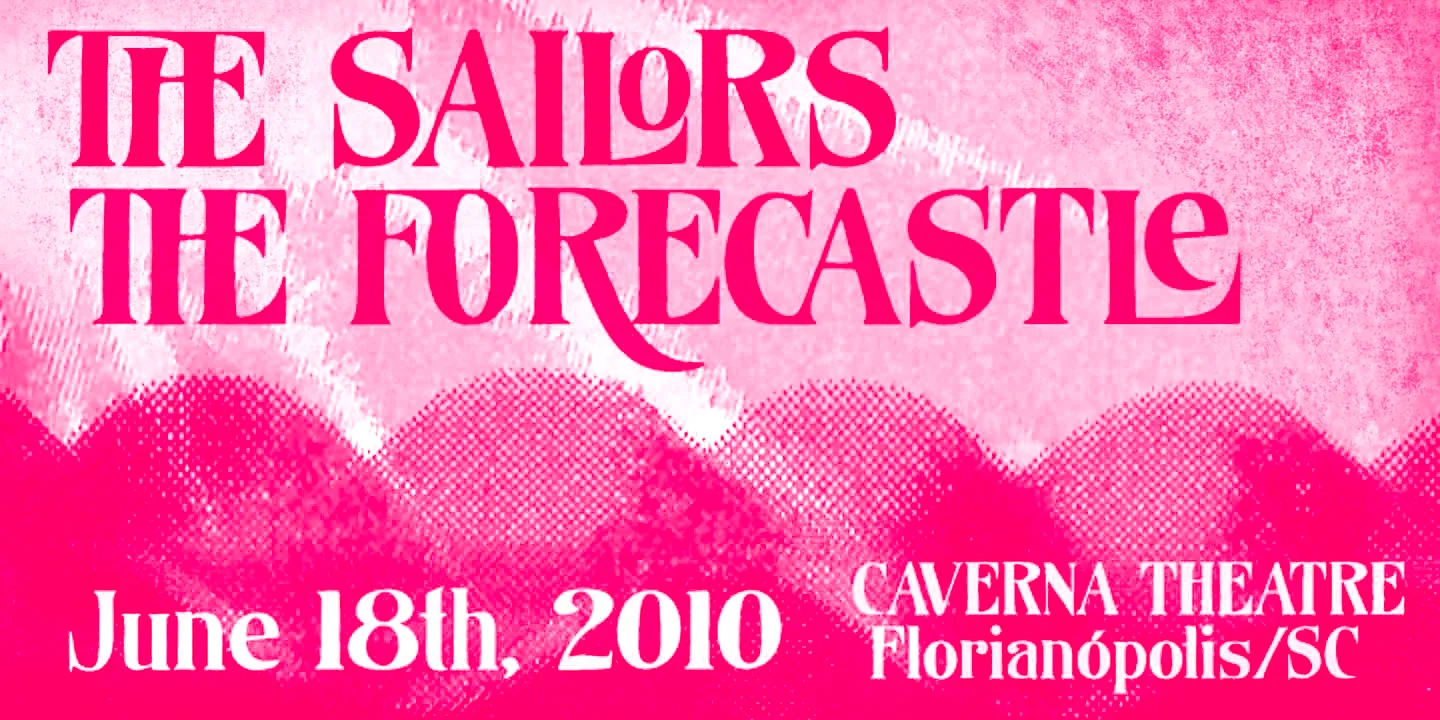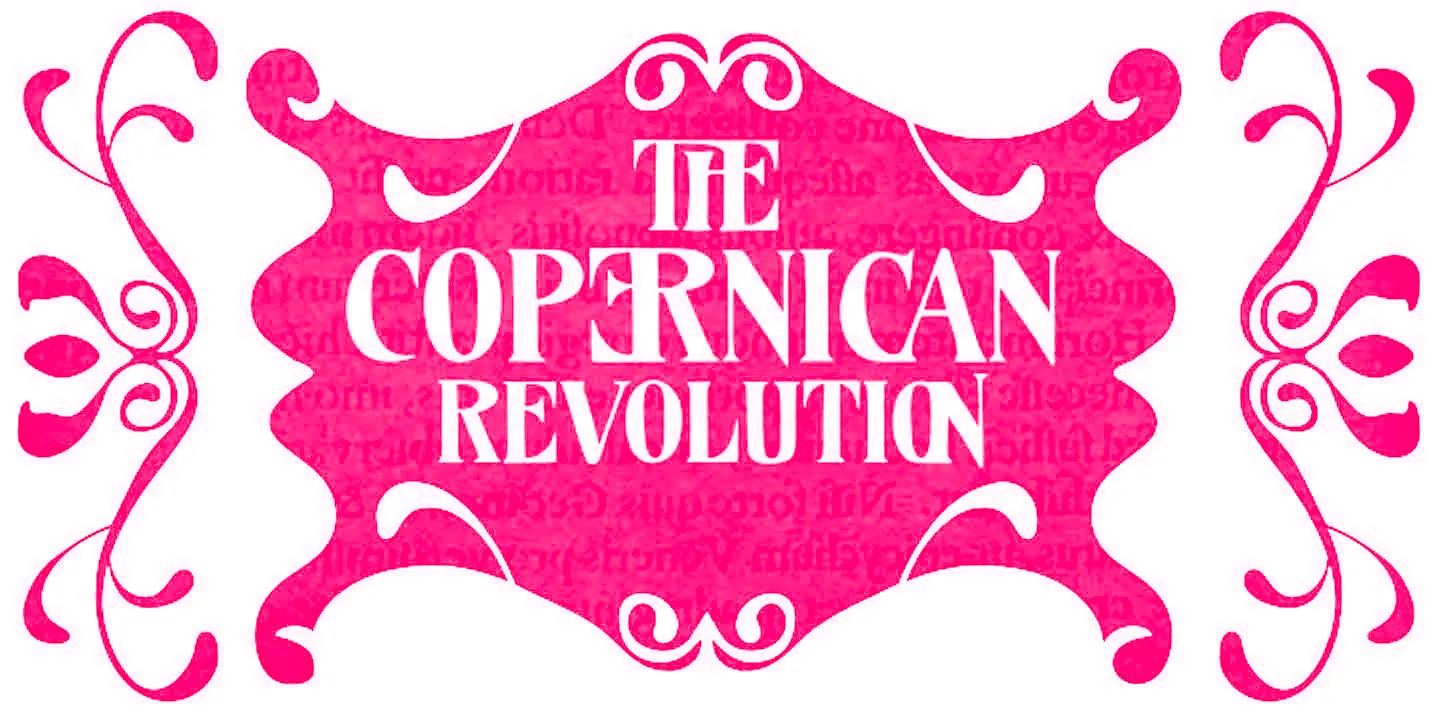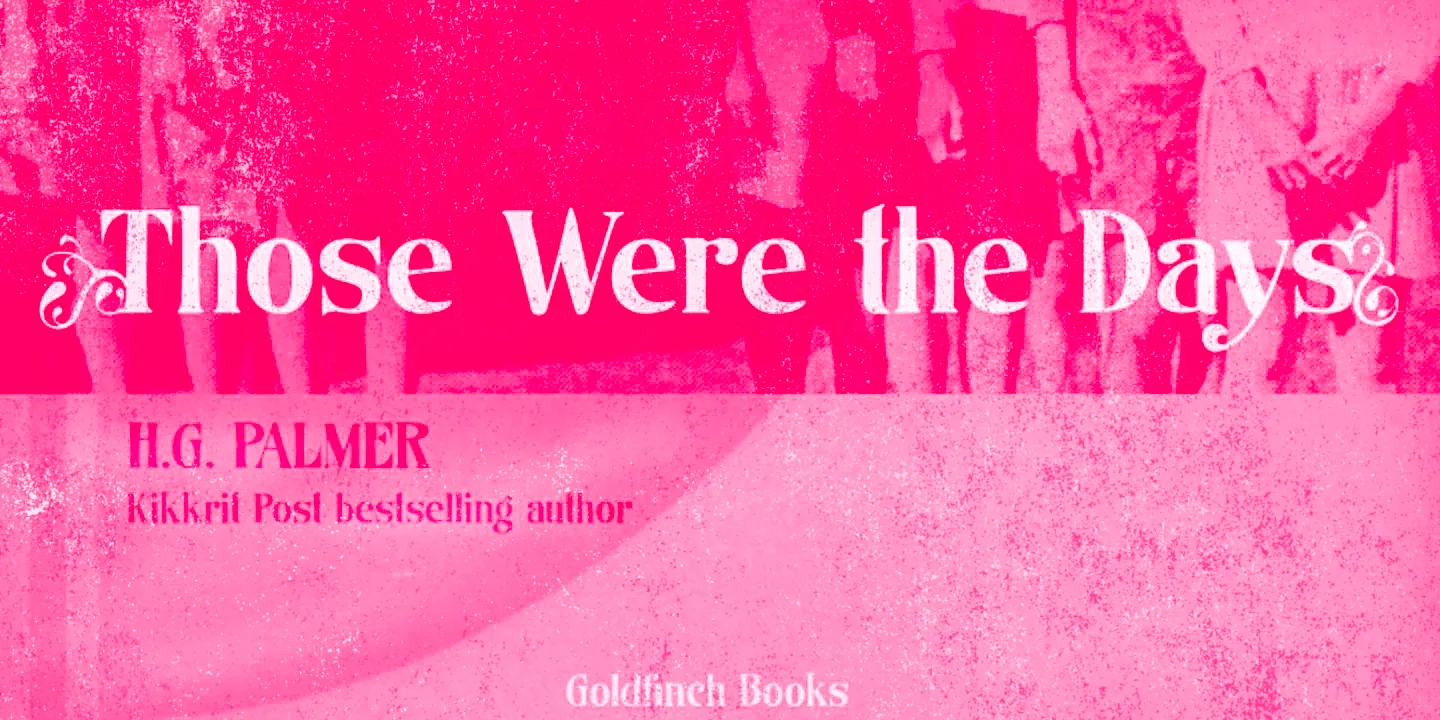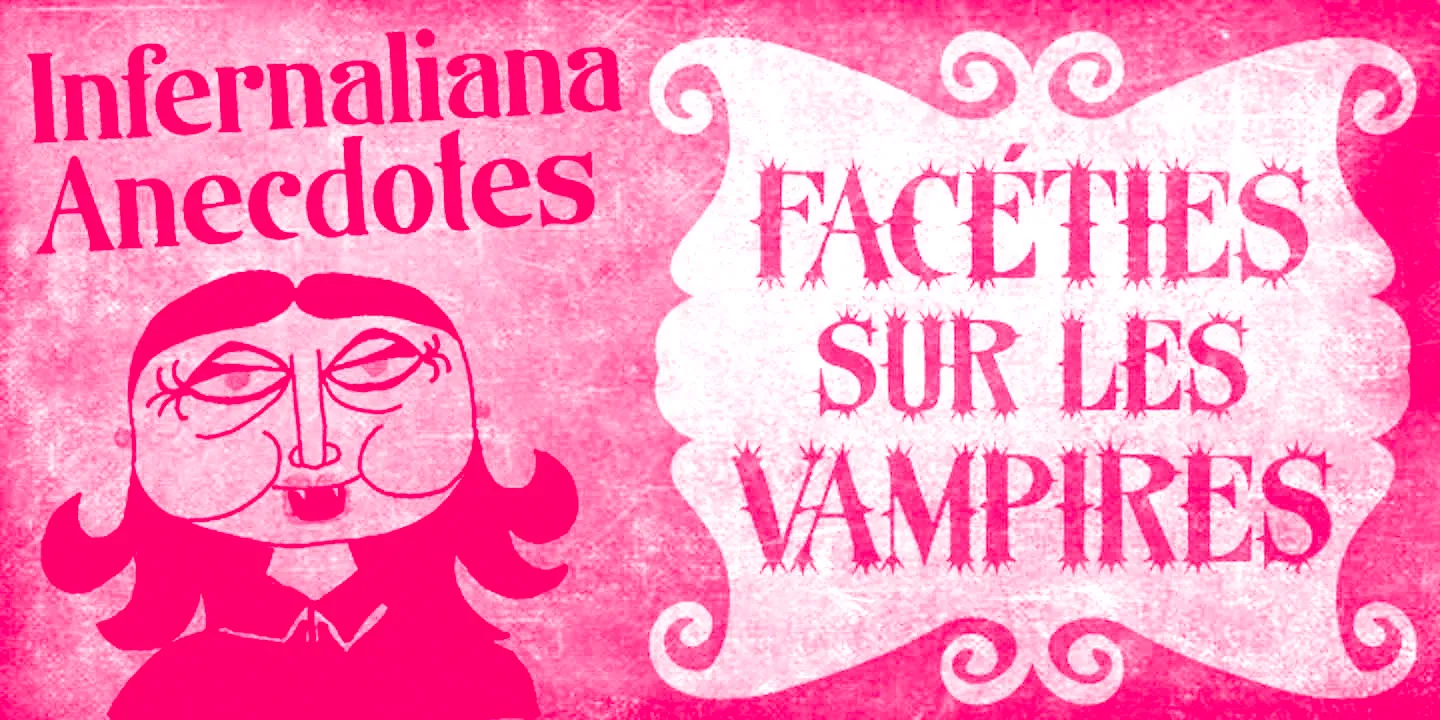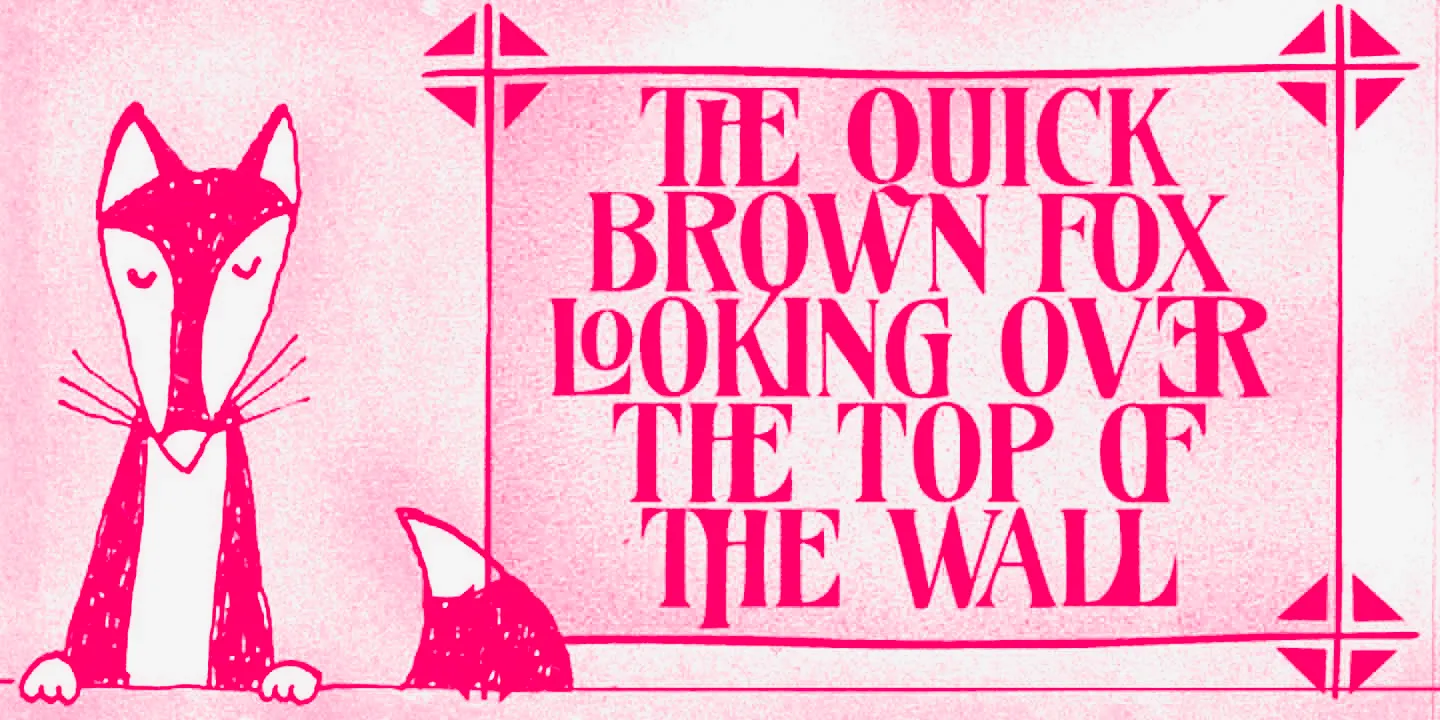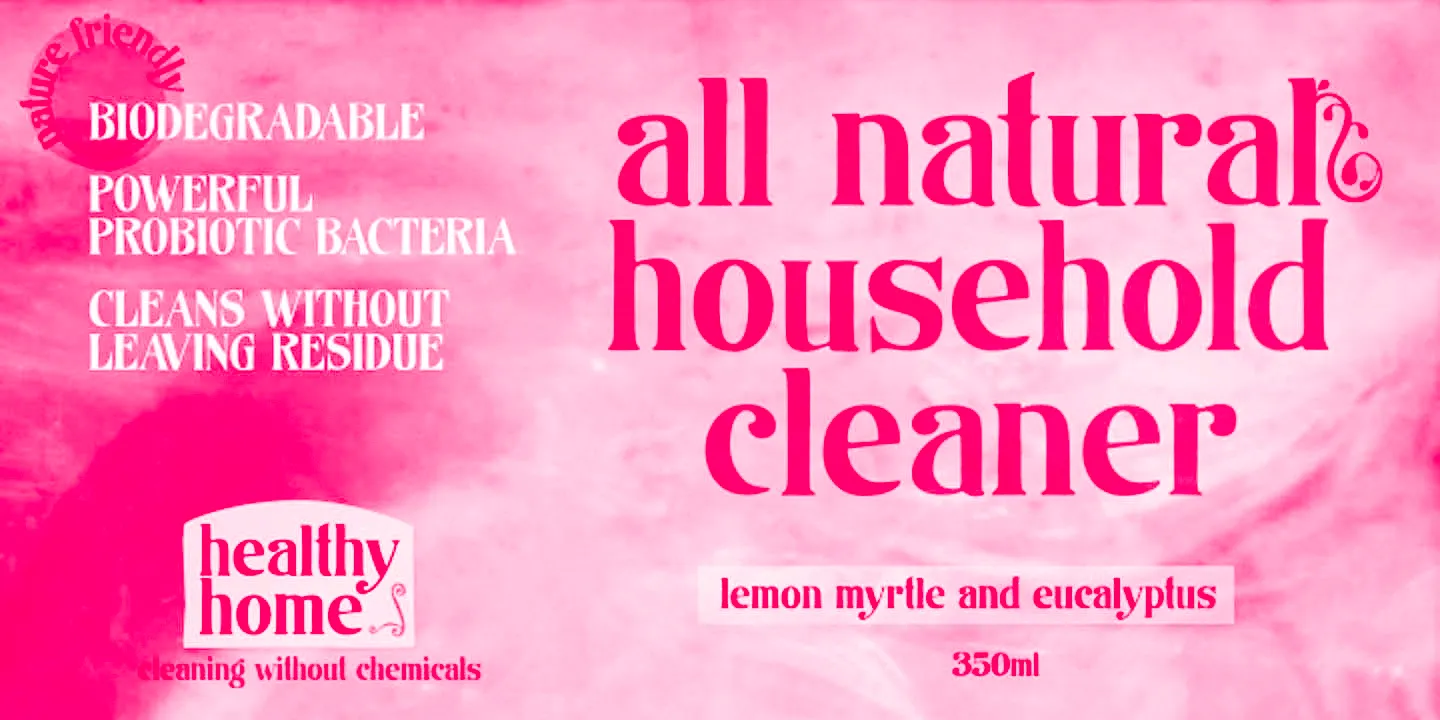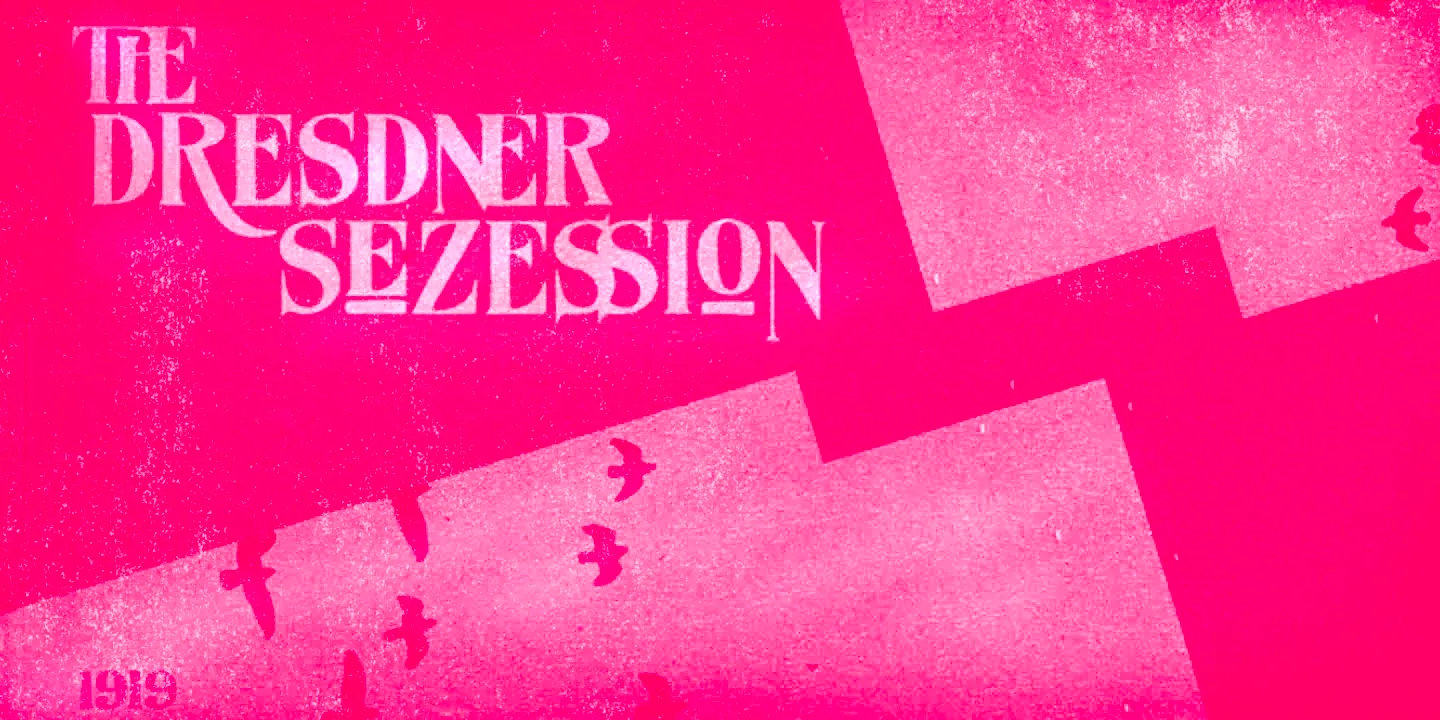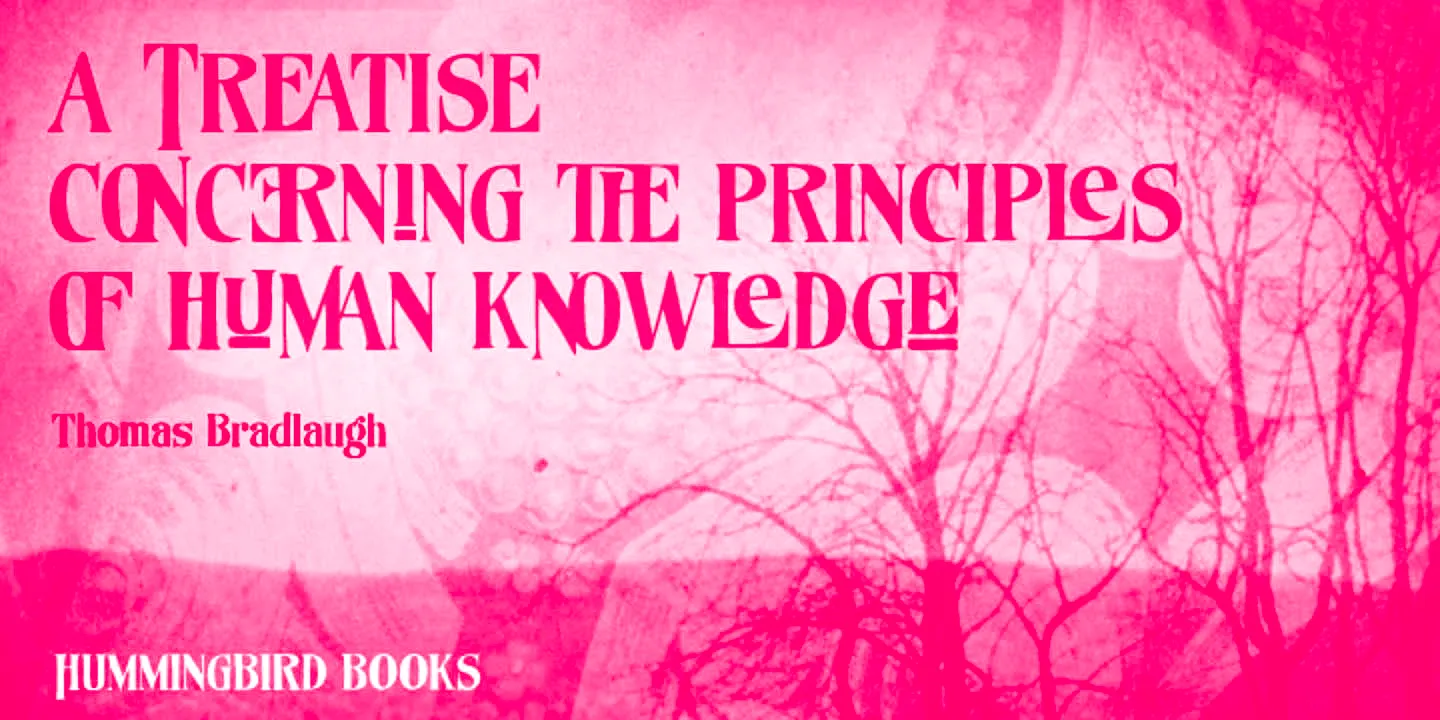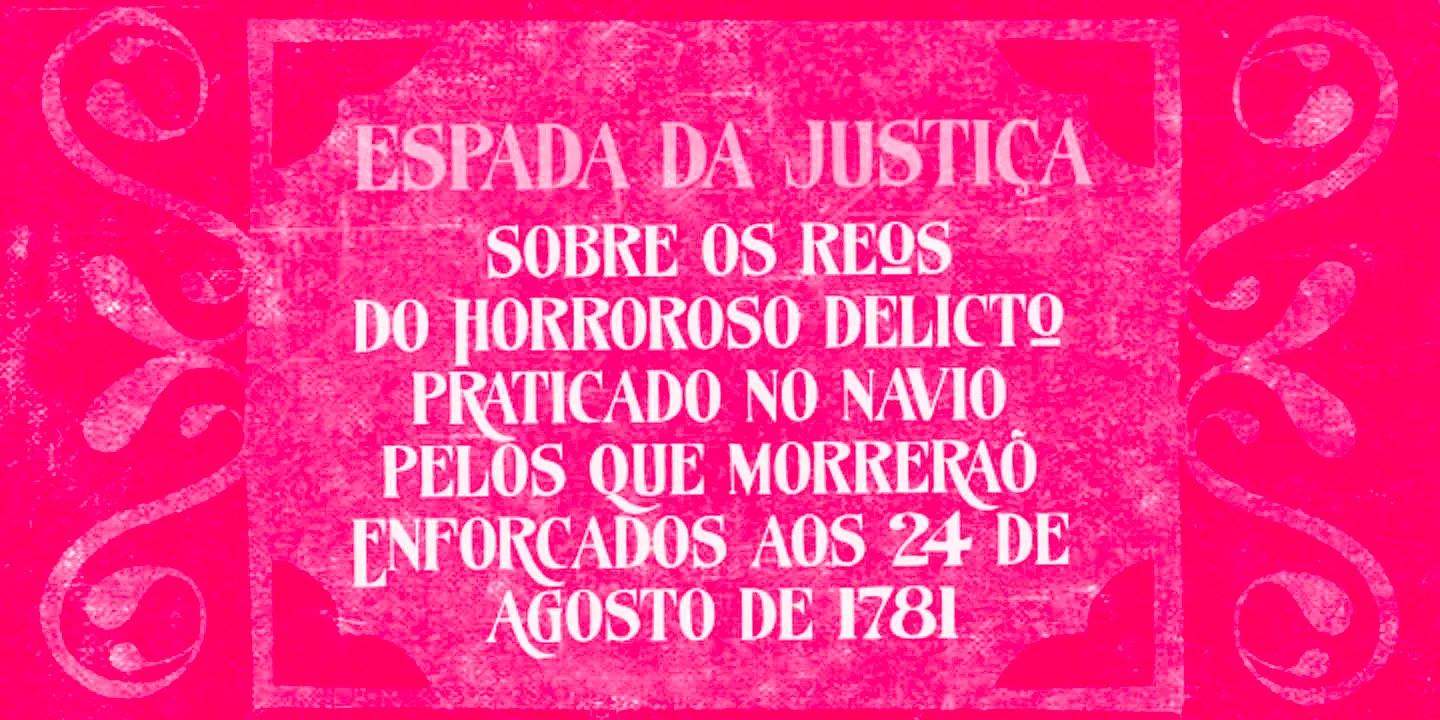
Organically
Organically is a modestly eccentric, ornamental display font family. Its origins in handcrafted serif shapes are significantly refined without losing any of their old-fashioned charm. The versatile Medium has decorative features such as swashes, majuscule ligatures, and stylistic alternates. Odd, the spiky sibling, is there to add further whimsy — plus! A stylish set of whimsically gothic ornaments. Ideal for branding, packaging, editorial design, or anything that calls for a little eccentricity.